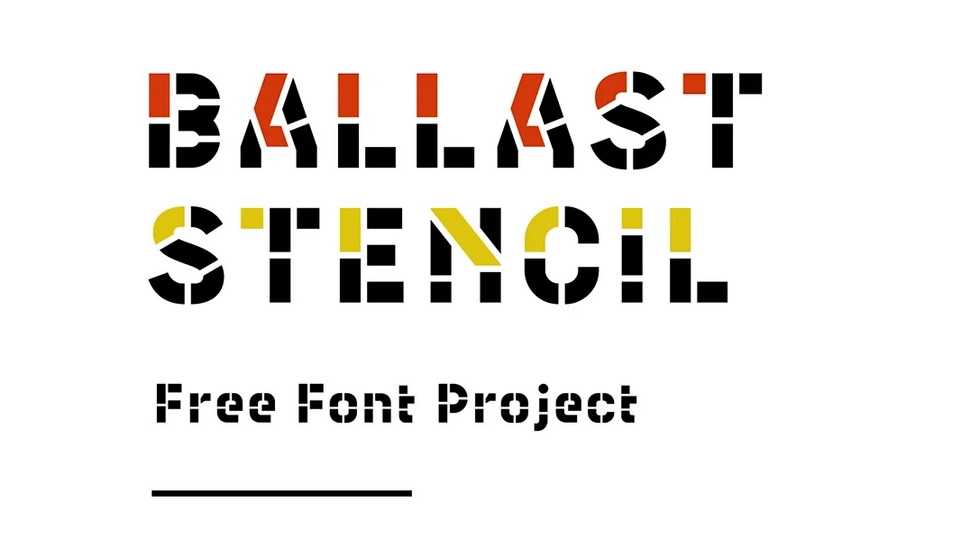
Download Ballast Stencil font, a bold, modular stencil typeface that combines geometric precision with an industrial edge. Its clean, sharp lines and uniform structure create a modern, utilitarian aesthetic.
Designer: Wataru Haraguchi